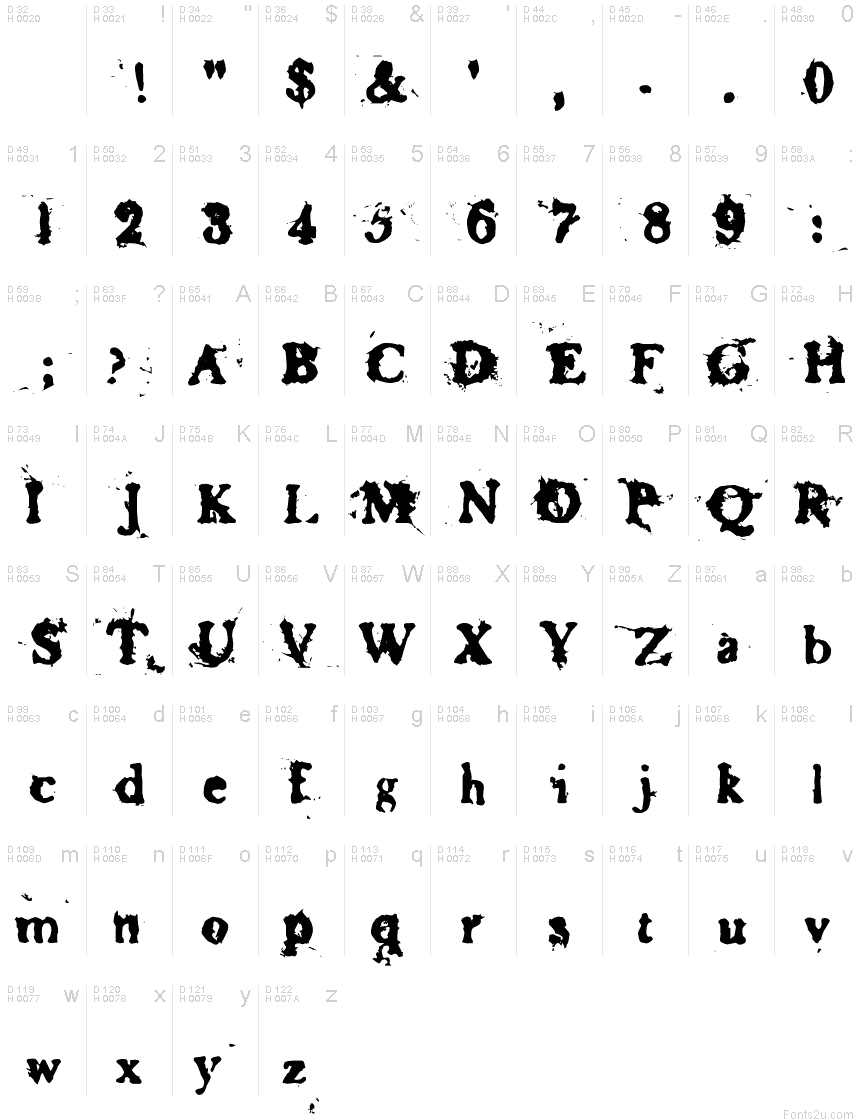
Basketcase Roman
Basketcase Roman font by B. Haber / Dixie's Delights is a free distorted display typeface that looks like it was dragged from a dripping ink bottle and left to mutate. The letters bulge, melt, and splatter, with irregular edges that feel more like torn paper than clean vectors. There’s a wild, unstable rhythm to the Basketcase family that instantly throws a design off-center-in the best, most chaotic way.
Using Basketcase Roman font, you can push horror posters, underground gig flyers, punk album covers, zines, Halloween event branding, game titles, and edgy YouTube thumbnails into full-on creep mode. This free font shouts at large sizes, so let it own your main headline and anchor it with a plain, compact sans serif underneath to keep everything legible.